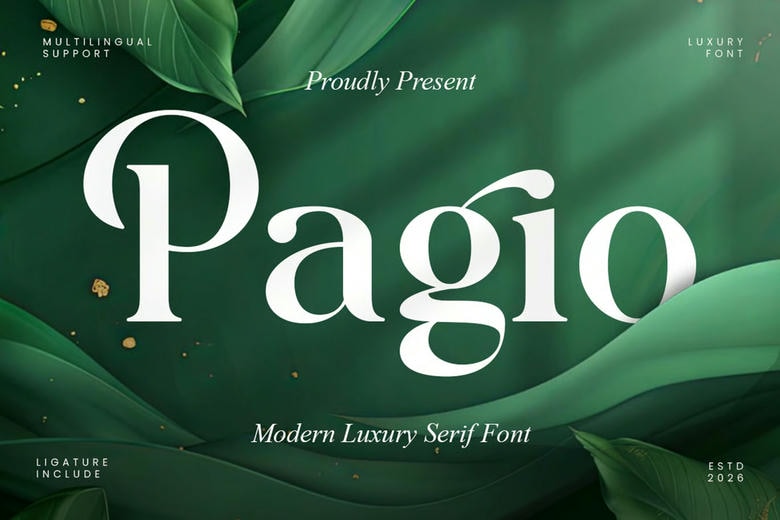
Pagio Font
Pagio Font is a modern serif with an elegant and minimalist style. It adds a touch of luxury and sophistication to projects like websites, logos, brand identities, social media quotes, wedding stationery, magazines, and more.
Pagio offers distinctive and stylish capital letters, along with special alternates and ligatures. This makes it easy to customize for different projects, including logos, brands, wedding invitations, business cards, greeting cards, posters, magazines, social media, agenda prints, and websites.
Pagio Modern Luxury Serif Font